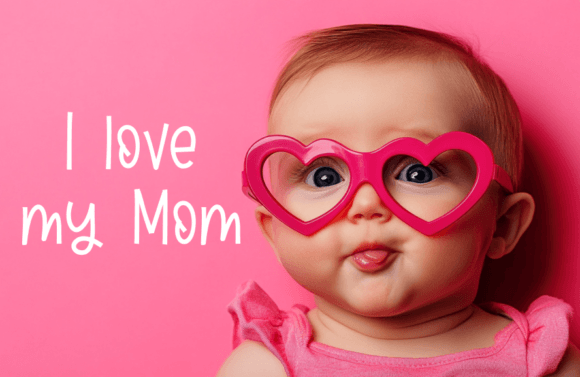
Kids Lettering Font: A Fun and Playful Typeface for Kids and Children
In the world of typography, fonts play a crucial role in conveying messages and emotions. When it comes to creating content for kids and children, a fun and playful font can make all the difference. This is where the Kids Lettering Font comes in – a friendly handwritten sans font that is perfect for kids and children-targeted content. In this article, we’ll explore the features and benefits of the Kids Lettering Font and how it can be used for various purposes.
Introducing Kids Lettering Font
Kids Lettering Font is a unique and playful typeface that comes with two versions: regular and bouncy. The regular version has a clean and simple design, while the bouncy version has a more energetic and lively feel to it. What makes this font stand out is that you can combine both versions in the same word to create a cute and interesting effect.
The font is designed to be highly versatile and can be used for a wide range of purposes, including book covers, merchandise, quotes, and branding. Its friendly and approachable design makes it perfect for kids and children-targeted content, but it can also be used for other creative projects that require a playful touch.
Benefits of Using Kids Lettering Font
So, why should you use the Kids Lettering Font for your creative projects? Here are some benefits:
- Playful and engaging: The font’s playful design is sure to capture the attention of kids and children, making it perfect for content that needs to be engaging and fun.
- Versatile: The font can be used for a wide range of purposes, from book covers to merchandise, quotes, and branding.
- Easily customizable: The font comes in two versions, allowing you to mix and match to create a unique look that suits your project.
- Highly legible: The font is designed to be easy to read, making it perfect for body text and headings.
Ideas for Using Kids Lettering Font
The Kids Lettering Font is a versatile typeface that can be used for a wide range of creative projects. Here are some ideas to get you started:
- Book covers: Use the Kids Lettering Font to create eye-catching book covers for children’s books, early readers, and young adult fiction.
- Merchandise: The font is perfect for designing fun and playful merchandise, such as t-shirts, stickers, and tote bags.
- Quotes and posters: Use the font to create inspiring and motivational quotes and posters for kids and children.
- Branding: The font can be used for branding and packaging design for kids and children-targeted products.
Tips for Using Kids Lettering Font
Here are some tips for using the Kids Lettering Font effectively:
- Mix and match: Combine the regular and bouncy versions of the font to create a unique and playful look.
- Experiment with colors: The font looks great in bright and bold colors, so don’t be afraid to experiment with different color schemes.
- Use it for headings and titles: The font is perfect for headings and titles, but it can also be used for body text for a more playful look.
- Pair it with other fonts: The Kids Lettering Font can be paired with other fonts to create a unique and interesting look.
In conclusion, the Kids Lettering Font is a fun and playful typeface that is perfect for kids and children-targeted content. Its versatility, customizability, and legibility make it a great choice for a wide range of creative projects. Whether you’re designing book covers, merchandise, quotes, or branding, the Kids Lettering Font is sure to add a playful touch to your project.